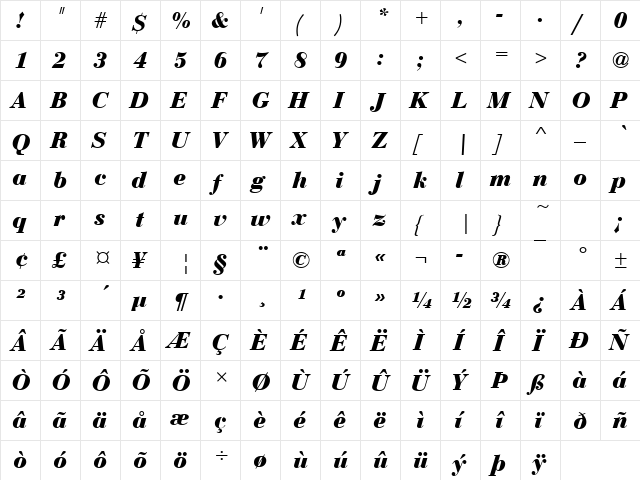
BodoniNo1URWT Bold Italic Font Preview
BodoniNo1URWT Bold Italic
Design Context for BodoniNo1URWT Typeface
BodoniNo1URWT is a composed and adaptable typeface that performs quietly and consistently across a wide range of design contexts. Its italic angle brings a sense of urgency and motion to the letterforms. The heavy weight commands attention and anchors typographic hierarchies.
Pro Tip: Try BodoniNo1URWT for annotation and caption copy alongside an upright companion — the contrast in angle creates a dynamic but ordered typographic system.